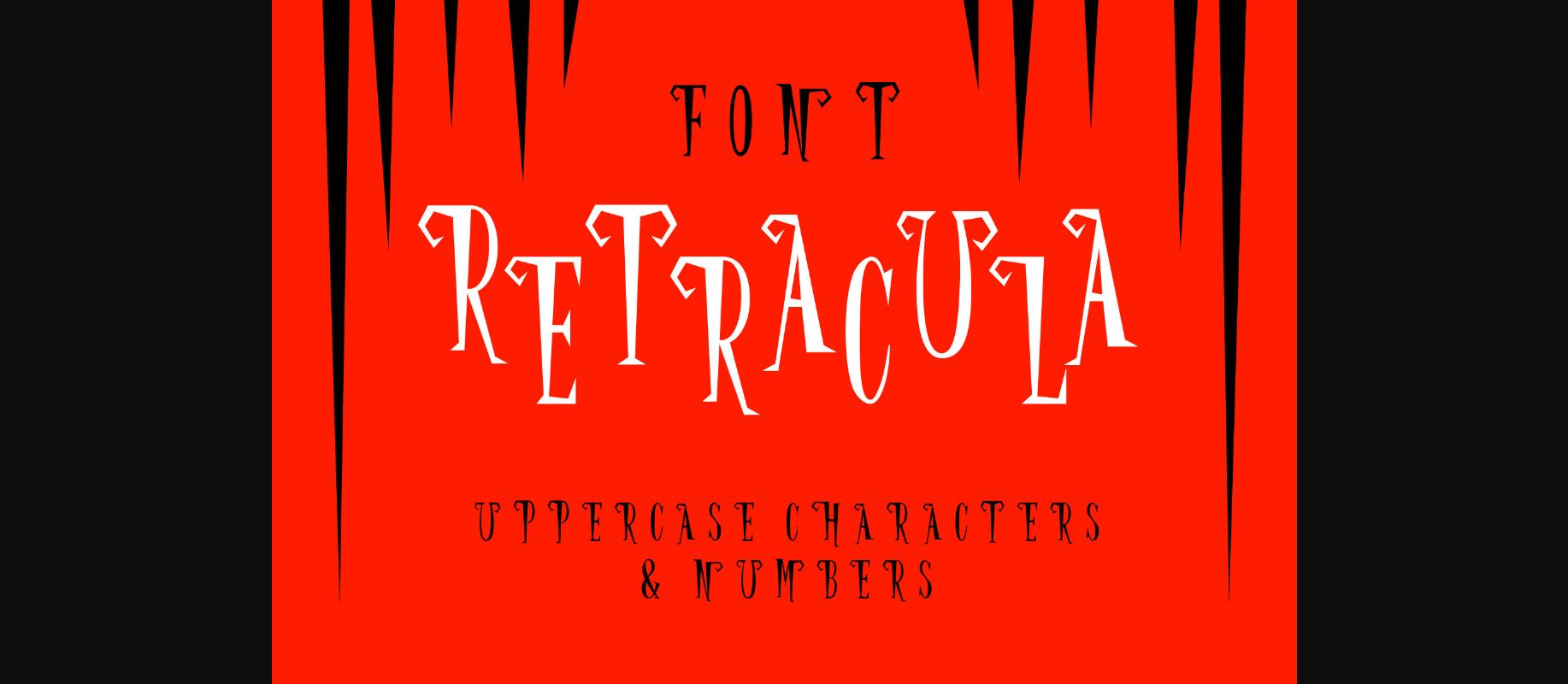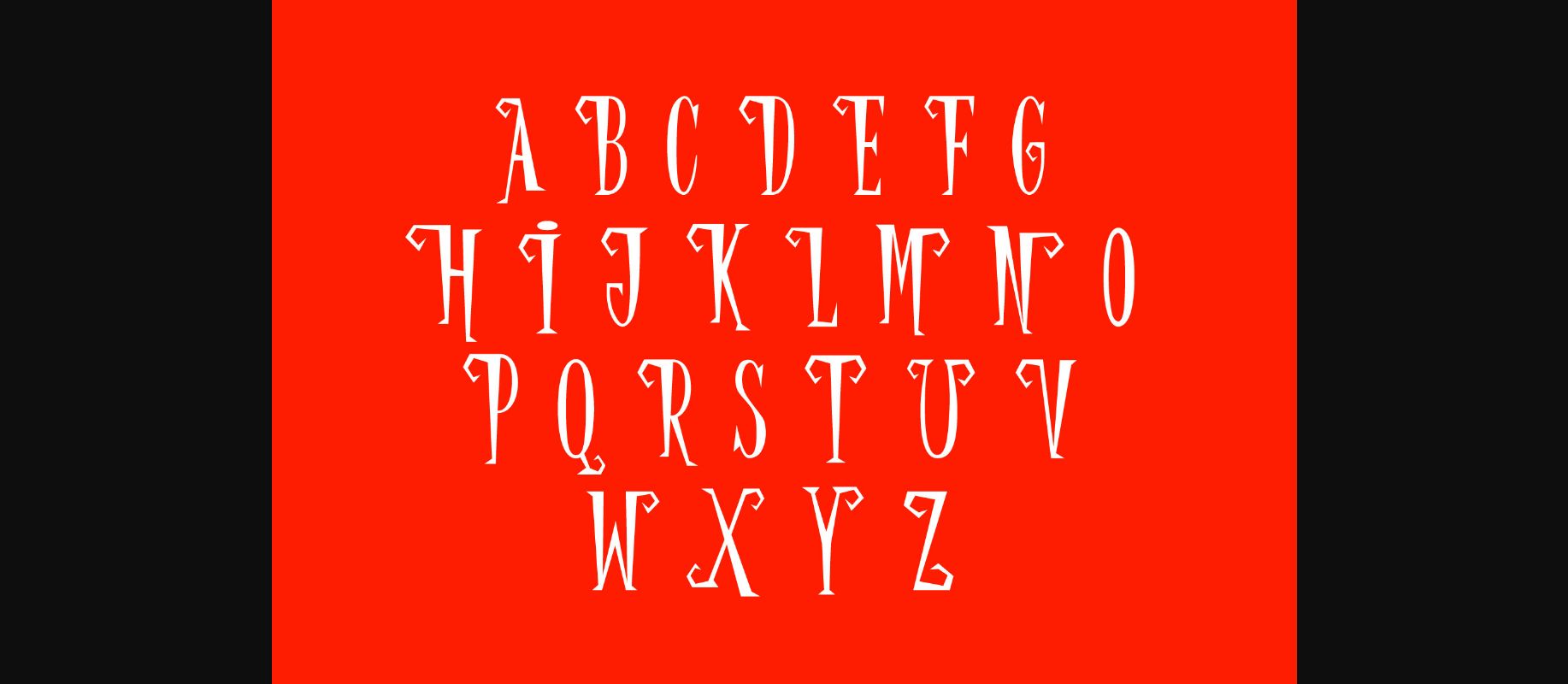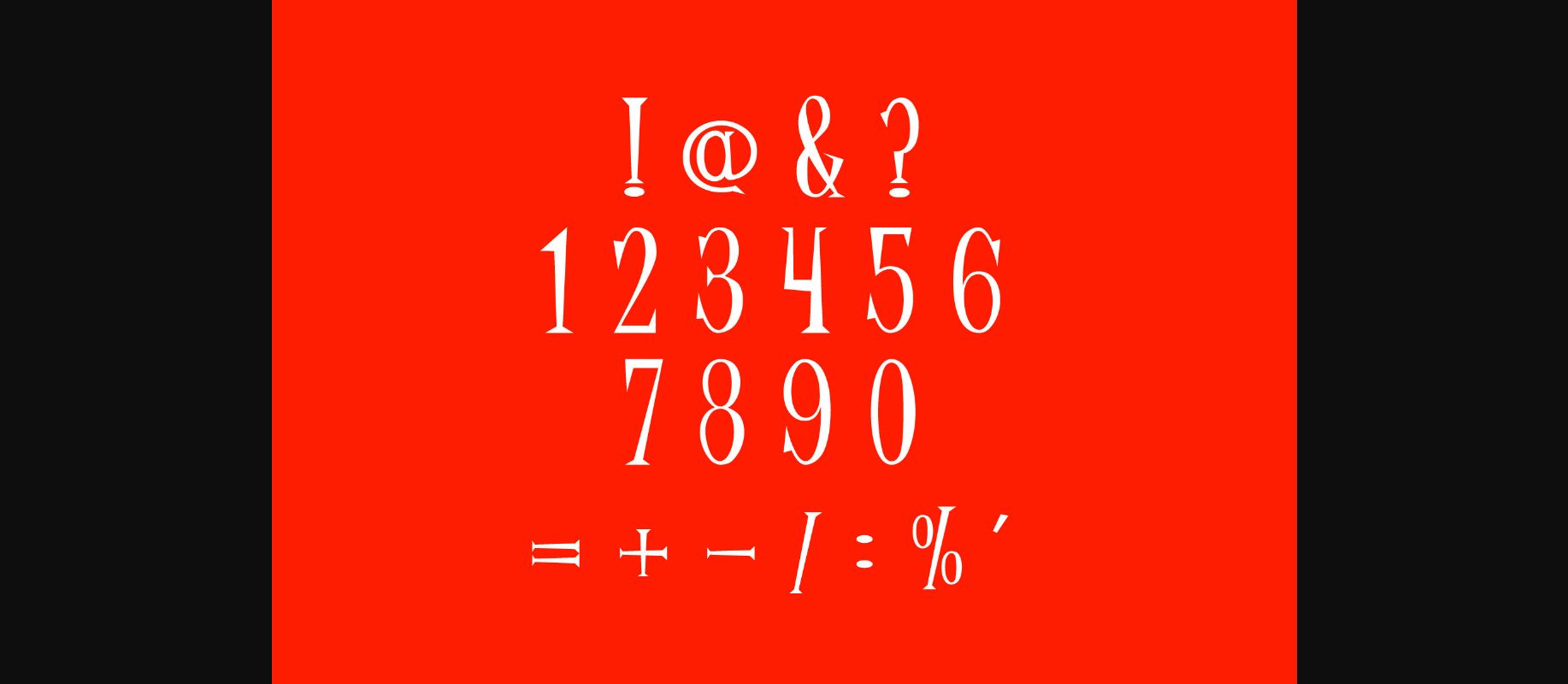
About Retracula Font
Retracula is a great font, sharp like Dracula Teeth! Imagine the number of combinations you can create using this font! Retracula looks beautiful on wedding invitations, greeting cards, logos, posters, labels, t-shirt designs, logos, business cards and is perfect for use in ink or watercolor works, fashion, magazines, packaging and food menus, children’s books, and more!